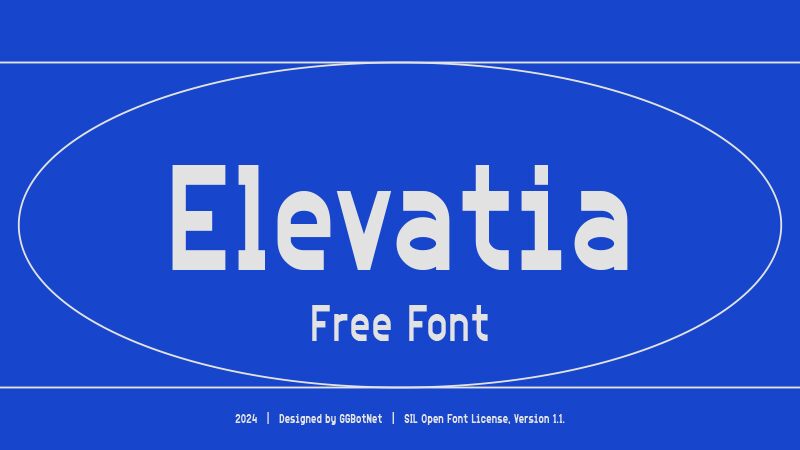
Elevatia
Elevatia font is a geometry-inspired, contemporary font designed by GGBotNet. This professional and modern font was inspired by the idea of elevation which is showcased with its clean look and aesthetic. Condensed sans serif products are some of the most versatile characters at hand so Elevatia can be combined with other styles within your projects.
Use it for posters, flyers, booklets and magazines. In addition to print media, elevate your websites for business or entertainment and your online ads. It is suitable for applications like presentations of all sorts and apps as well as software. Enjoy it in both texts or standalone titles/logos etc.